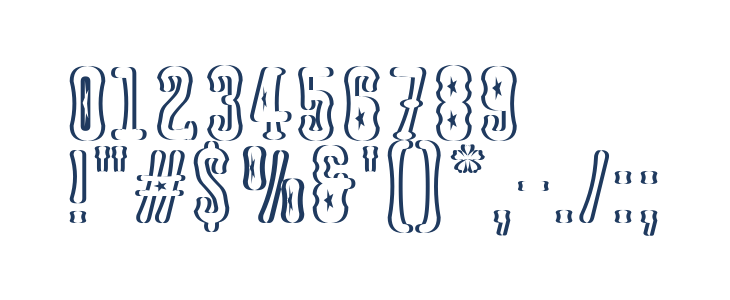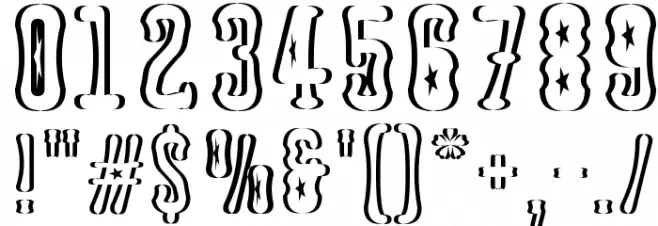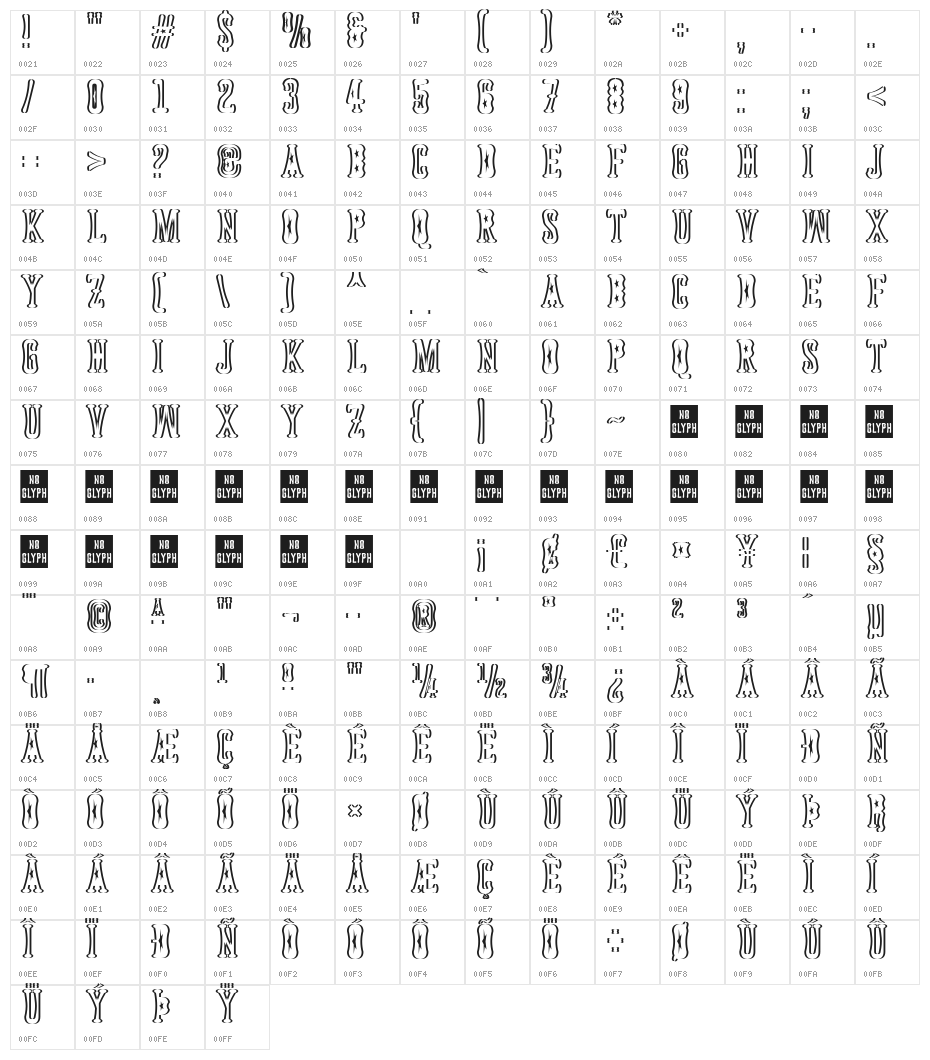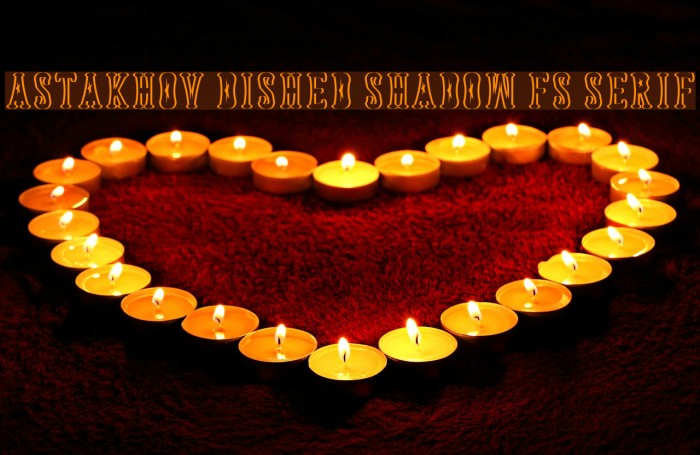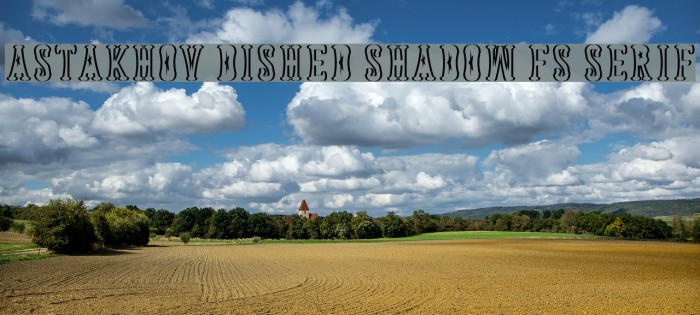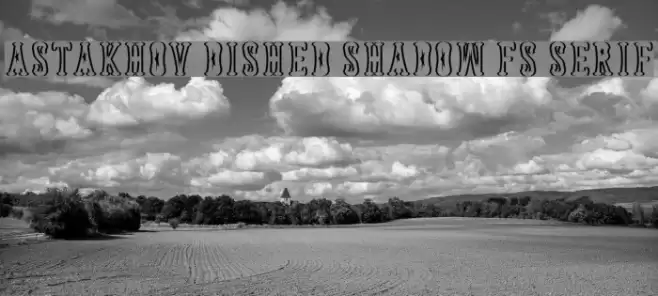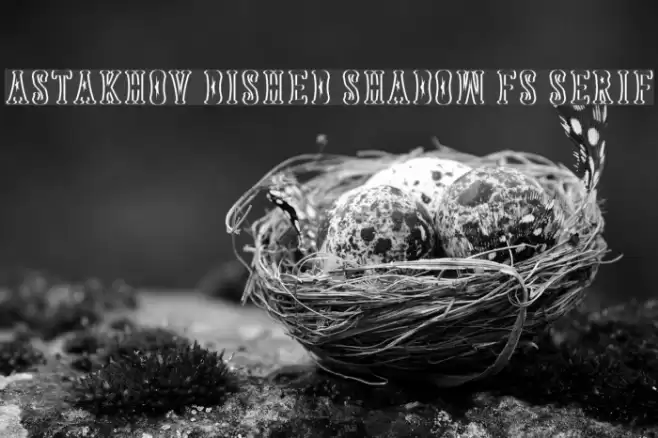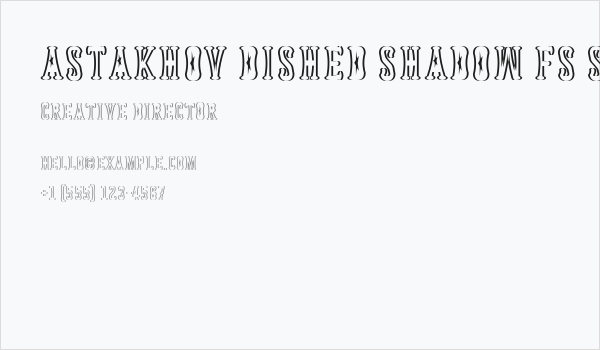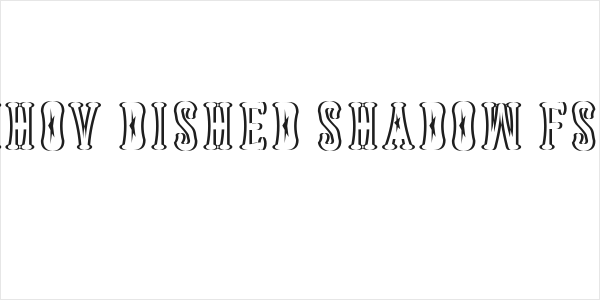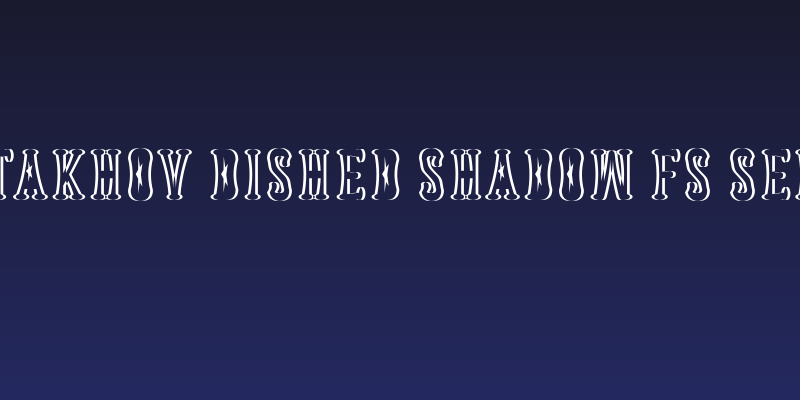
Astakhov Dished Shadow FS Serif Font
Astakhov Dished Shadow FS Serif Description
This font features a bold and decorative style with a unique shadow effect that gives it a three-dimensional appearance. Each character is adorned with star-shaped cutouts, adding a playful and eye-catching element. The serif design is pronounced, contributing to its vintage and ornamental feel. The uppercase and lowercase letters maintain a consistent style, while the numerals and special characters follow suit, ensuring a cohesive look across all glyphs. The intricate detailing makes it suitable for projects that require a standout, artistic touch.
| Overall Style | Vintage, Decorative |
| Proposed Projects | Ideal for posters, logos, event invitations, and any design needing a vintage or decorative flair. |